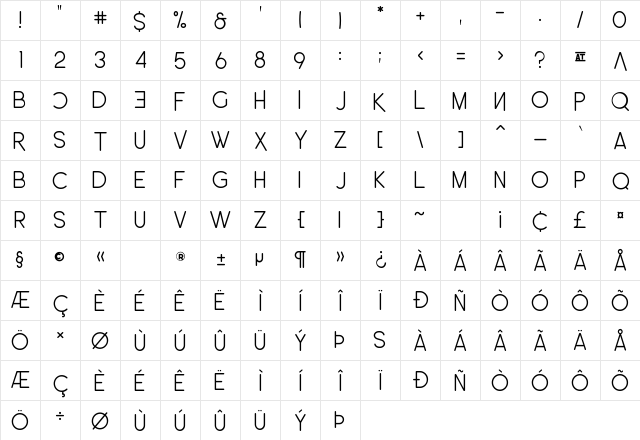
Leo Rounded Light Regular
Design Context for Leo Rounded Light Typeface
Leo Rounded Light uses gentle rounded endings to create a warm, inviting typographic personality — less corporate than geometric sans, more refined than playful display fonts. Its slender proportions lend an understated elegance to any composition.
Well-suited to UI design, mobile interfaces, and any brand that wants approachability without sacrificing clarity.
Font Pairing: Pairs well with a rounded or humanist sans for body copy, maintaining the friendly tone without relying on Leo Rounded Light to carry extended reading.
Pro Tip: Use Leo Rounded Light for UI elements, app interfaces, and anywhere a friendly, approachable tone needs to be maintained without sacrificing clarity.